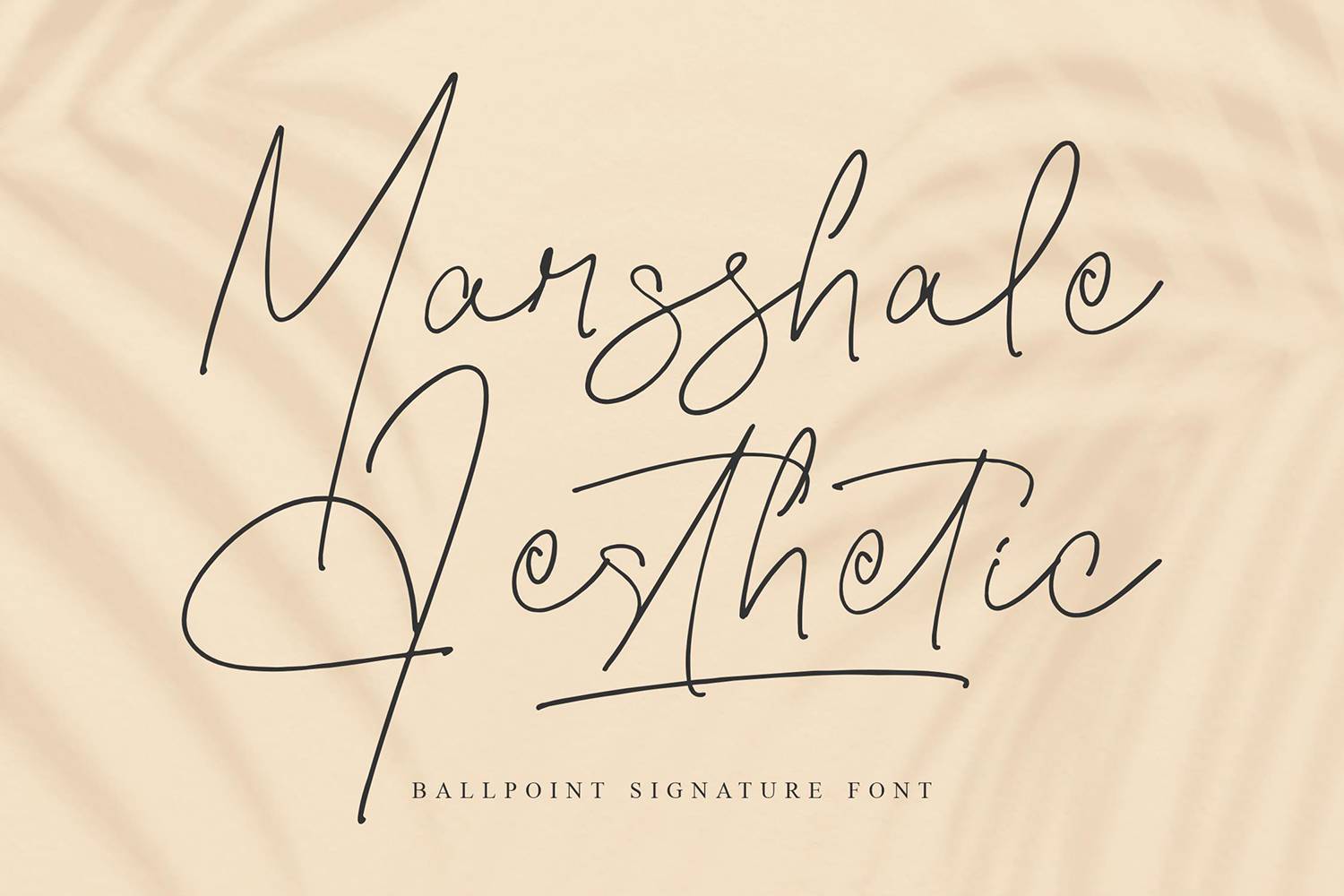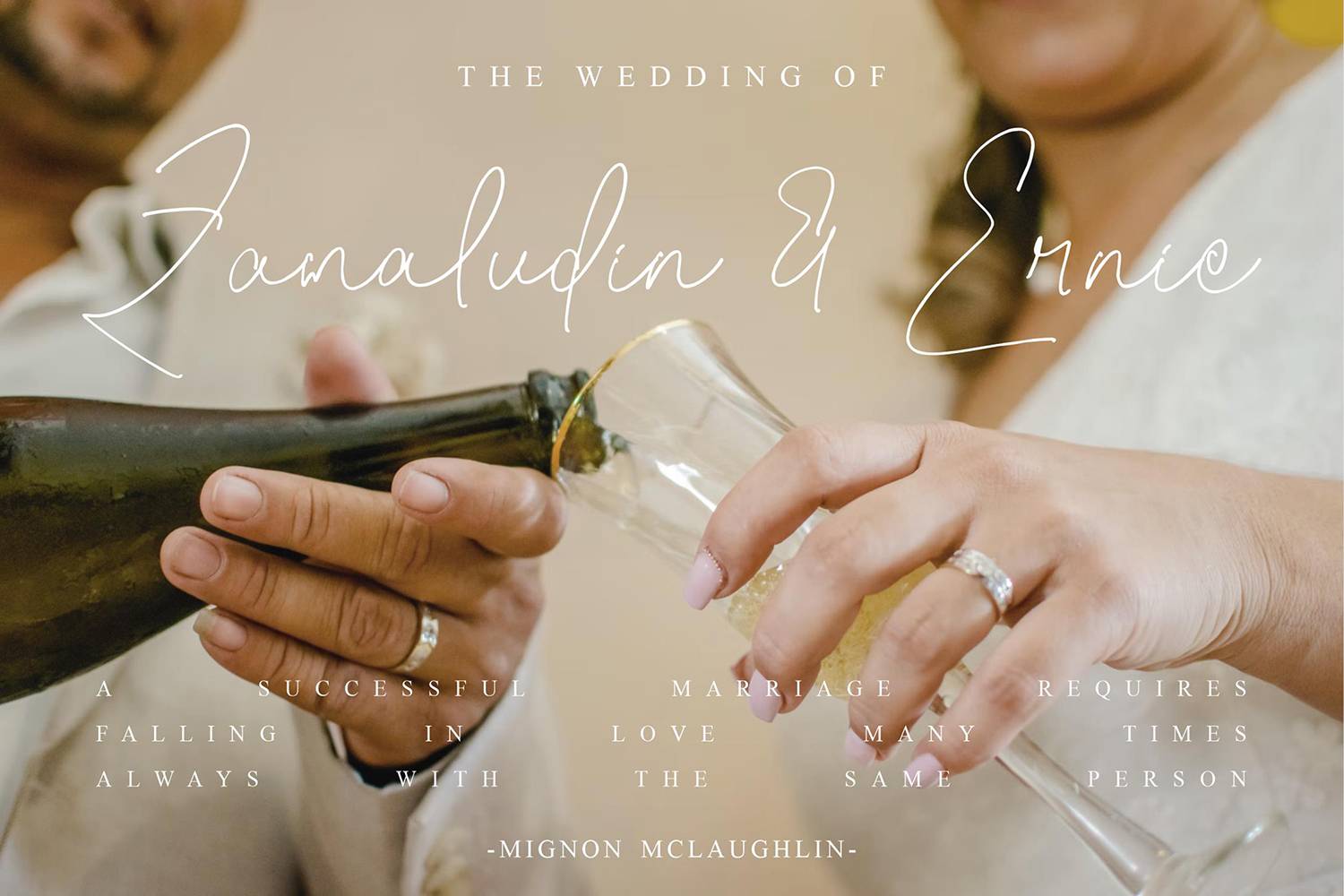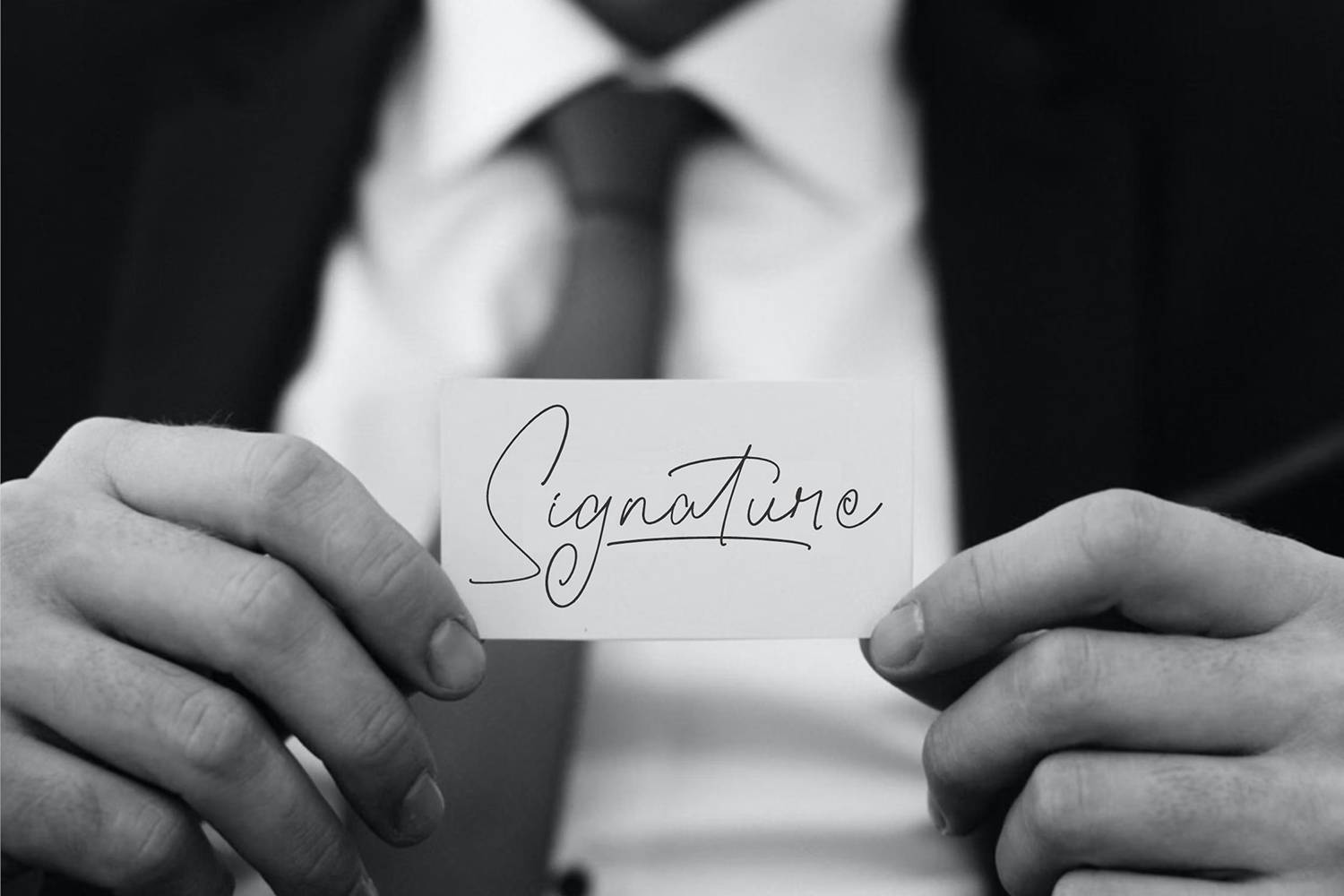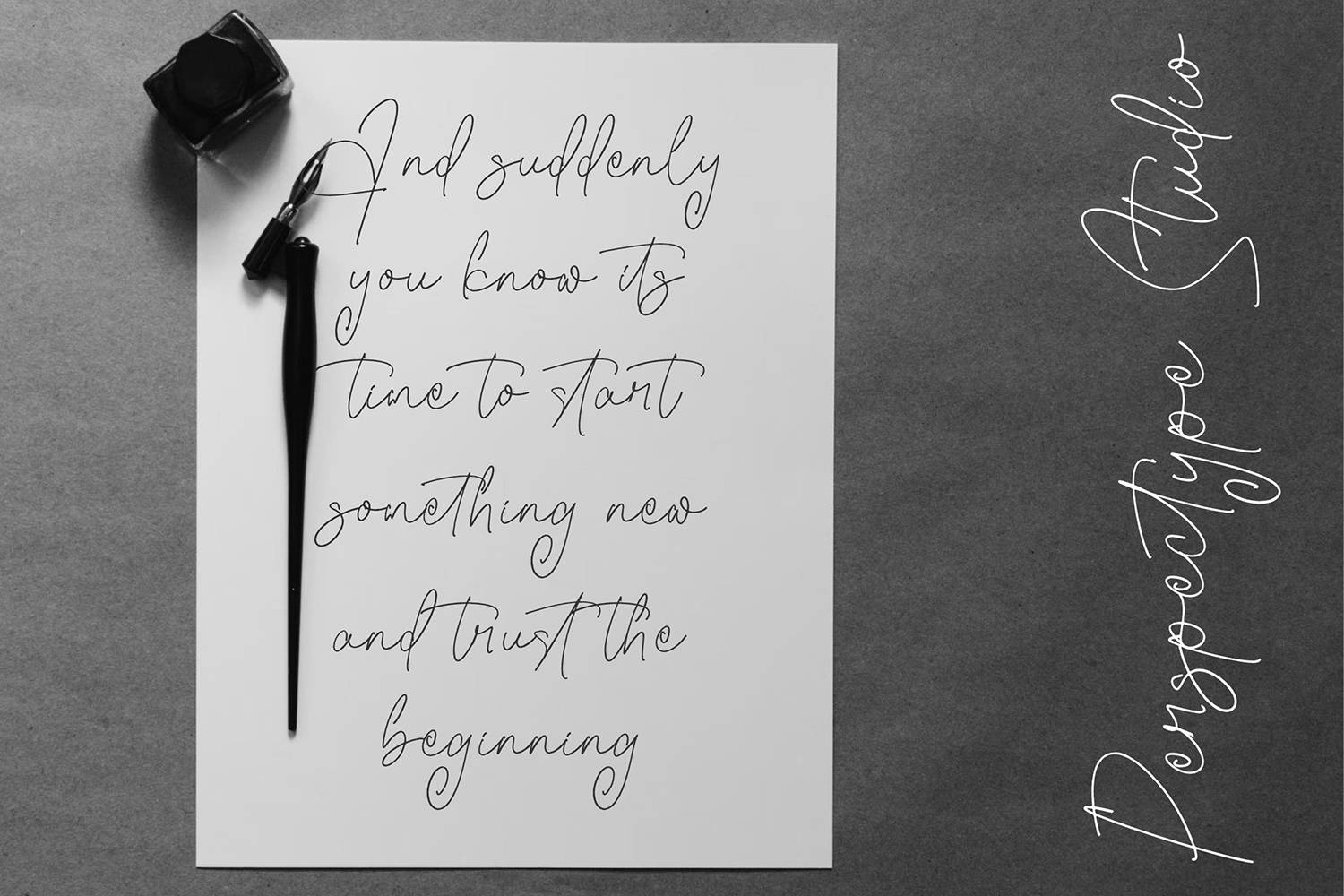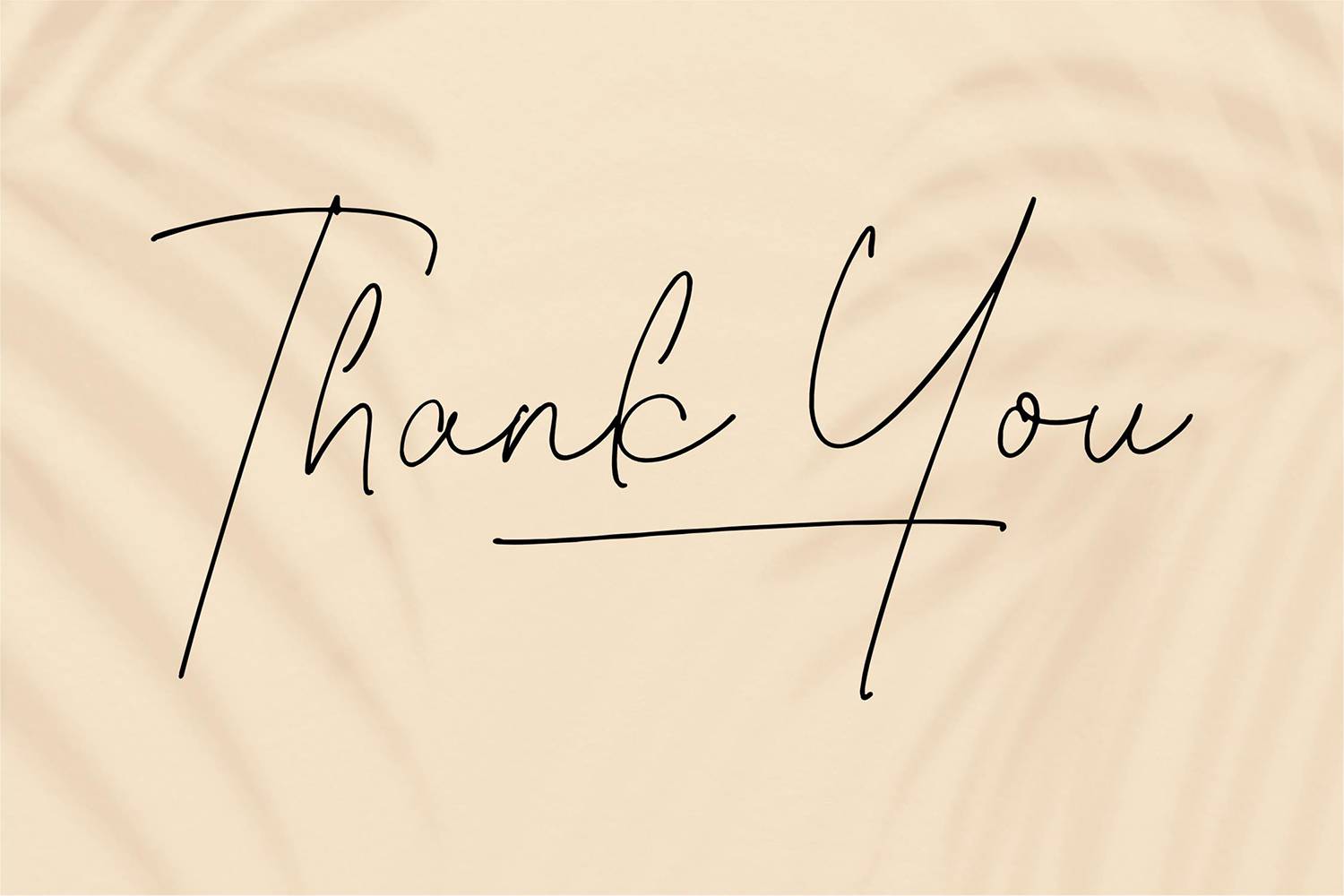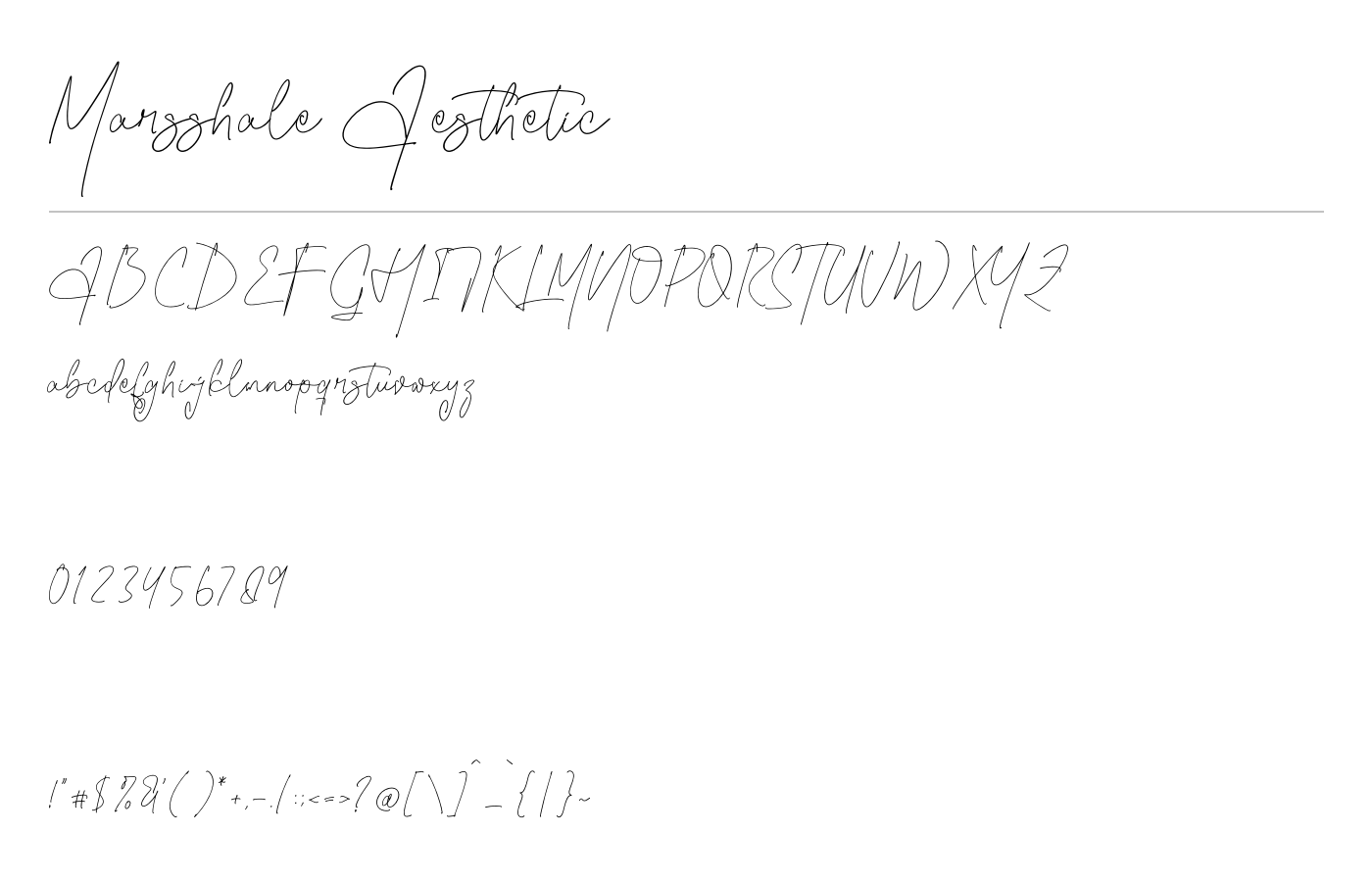
Marsshale Aesthetic is a delicate, handwritten script font featuring slender, flowing strokes that create an elegant and personal feel. Its tall, narrow letterforms with fine, wispy lines make it ideal for adding a sophisticated and artistic touch to branding, invitations, and stylish editorial projects. This font works best in designs that require a graceful, intimate, and modern handwritten look.
Marsshale Aesthetic Font
About Marsshale Aesthetic Font